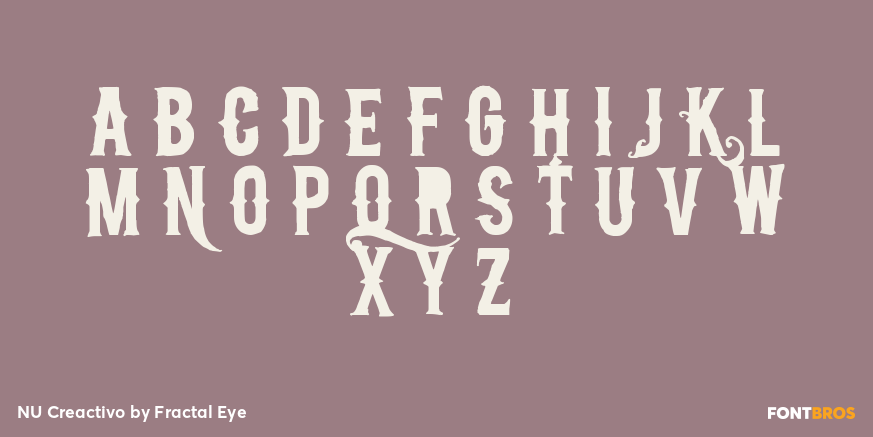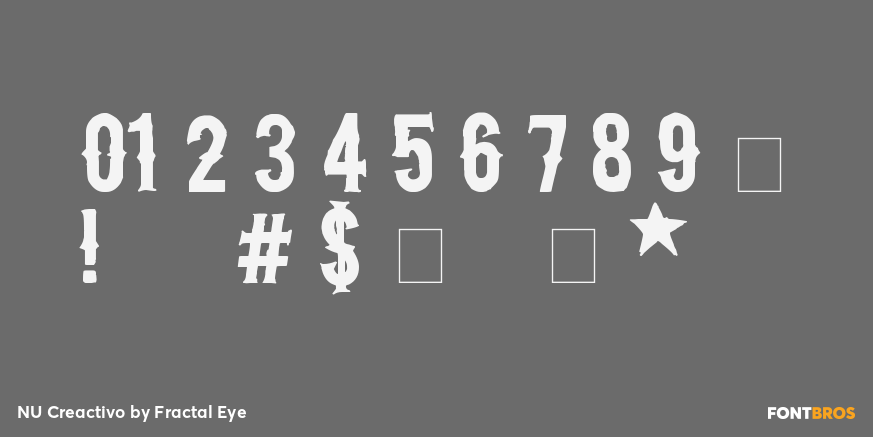
NU Creactivo
Font Family by Fractal Eye
NU Creactivo is a bold, condensed decorative serif with a rugged vintage feel and unmistakable display presence. Its slab serif structure, strong contrast, and ornamental, all-uppercase styling give it a punchy western-meets-retro character that feels graphic, assertive, and full of personality.
Designed by Fractal Eye, this family includes 1 font style. It’s a natural fit for poster work, signage, logo concepts, packaging, and other headline-driven layouts where you want a historical or mid-century inspired look with plenty of visual texture.
If you’re after a serif display face that feels numeric, ornamental, and confidently styled, this one brings a distinctive old-school energy without losing clarity at larger sizes.